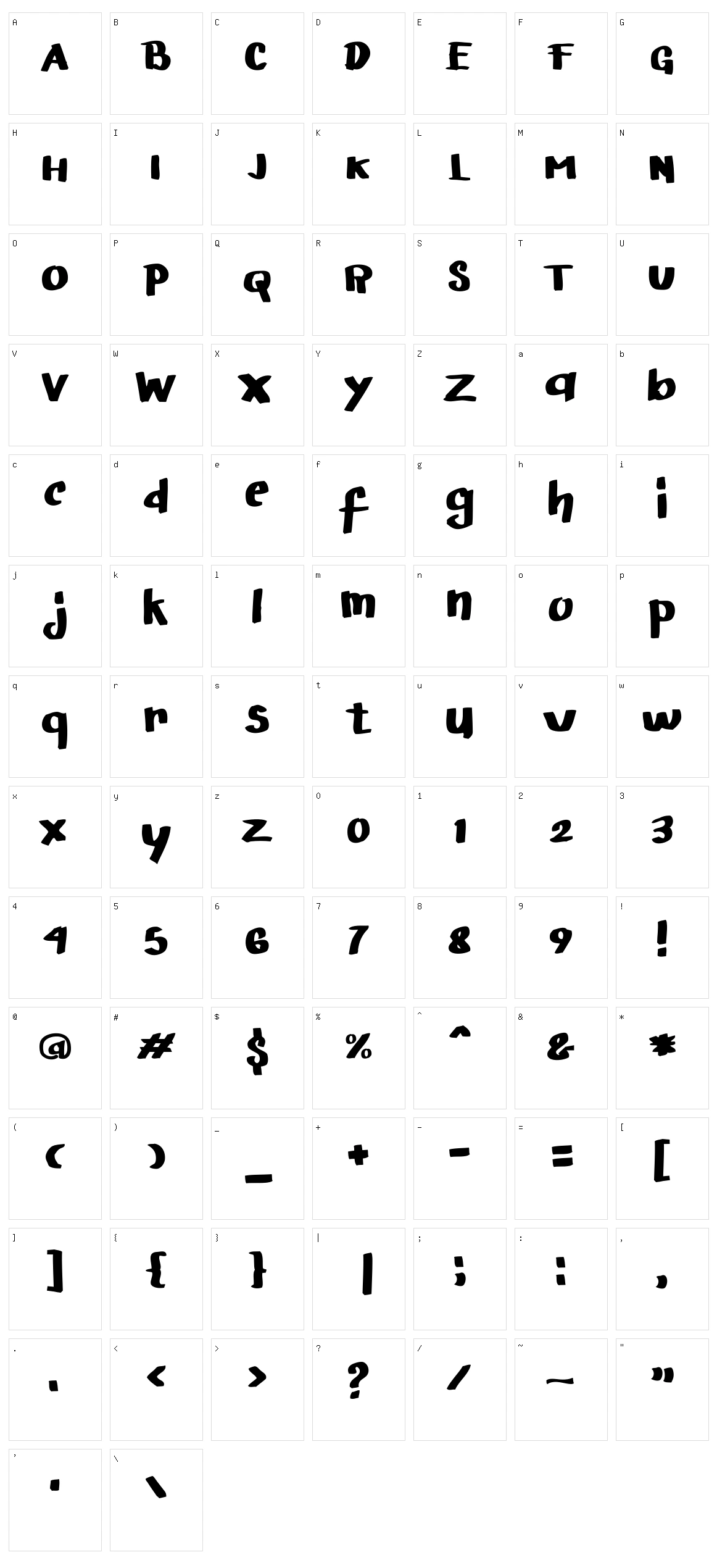
The free font Arigato is carefully designed by Debut Studio, showcasing a thoughtful balance of creativity and usability and falls under the Script font style. When you download the ZIP file, it contains only 17.66 KB of font files, making it lightweight and quick to download. Please review the license details below to understand permitted usage and distribution rights. If license information is not available, we recommend using this font for personal projects only or contacting the author directly for commercial usage permissions.